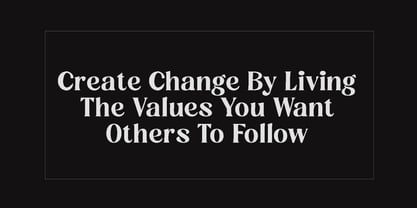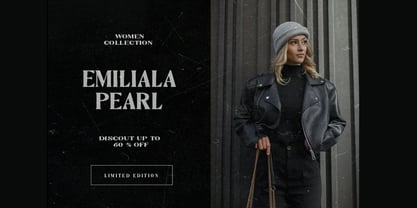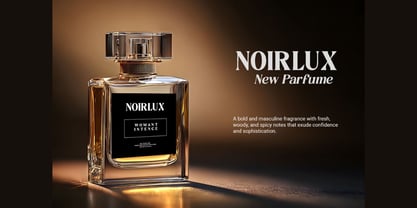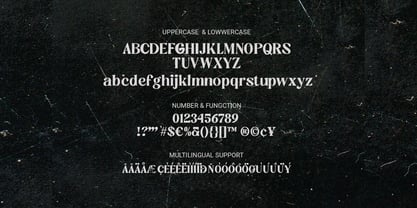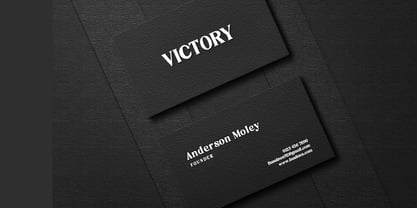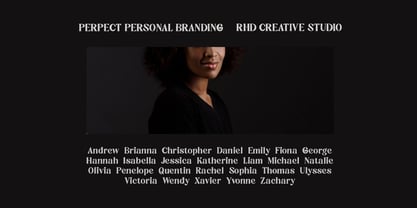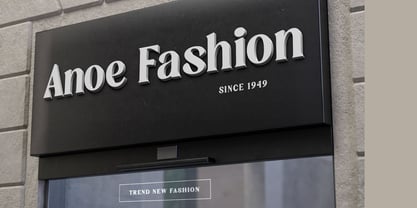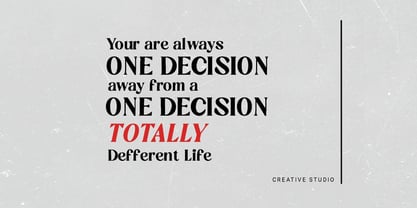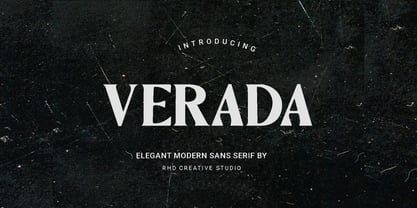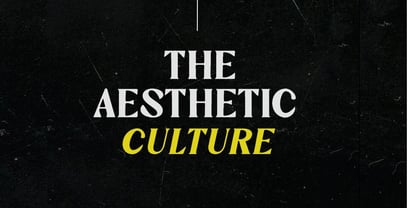
Verada
La familia tipográfica Verada fue diseñada por y publicada por RHD Creative. Verada contiene 2 estilos y opciones de paquete familiar. Más información sobre esta familia
Hello everyone, I would like to introduce VERADA - Elegant Modern Sans Serif Font. VERADA - Elegant Modern Sans Serif Font with Handmade character. VERADA - Elegant Modern Sans Serif Font , Modern font to make your design project stand out! VERADA a perfectly choice for any creative endeavor, creating, modern, chic, lifestyle design such as logotype, title, cover, branding, invitations, wedding designs, display and magazine, social media posts, advertisements, printed quotes, product packaging, corporate brand, product designs, labels, photography, watermarks, special events and any other project with modern touch. Thank you for your purchase! Hope you enjoy with our font!